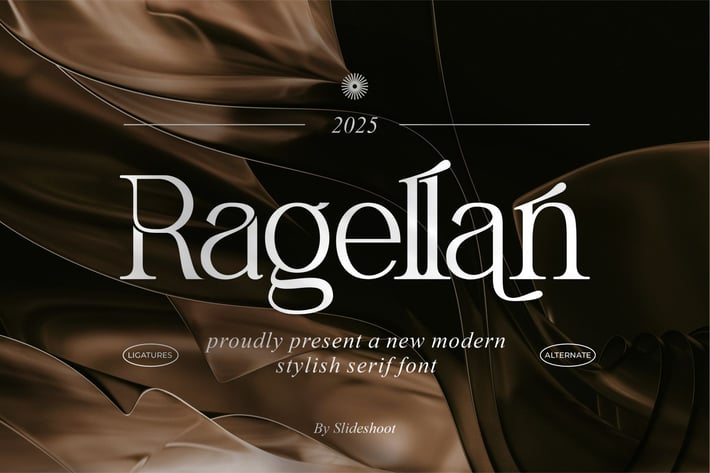
Ragellan || Unique Serif Font
Introducing Ragellan is modern stylish serif font, trendy, elegant and stylish font. It has a unique character. It is perfect to be combined with invitation card designs, company logos, movie titles, movie names, business cards, book titles, brand names and various other designs.
- Uppercase and lowercase
- Numbering and Punctuation